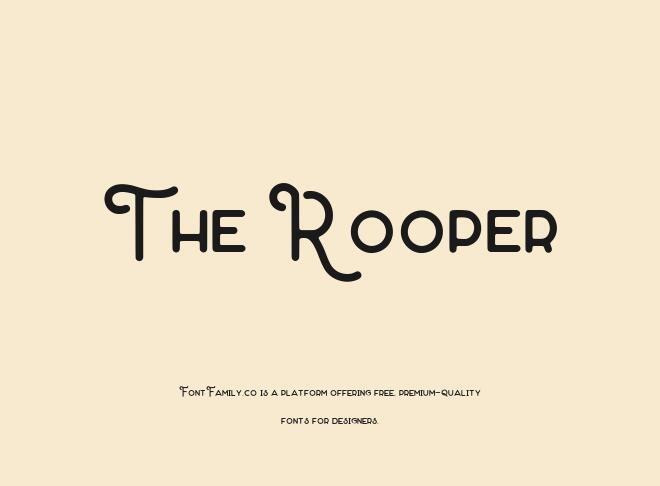
The Rooper Font
The Rooper Font, designed by Independent Type Foundry, is a charming blend of rustic, playful, retro, and vintage elements. Its unique character strokes and high legibility make it a standout choice for a variety of design projects. The Rooper Font is akin to the nostalgia of the 60s while incorporating a modern twist, making it perfect for logos, posters, branding, and packaging design. Its versatility also extends to digital platforms, enhancing web and app designs with its distinct personality. Compared to other fonts, The Rooper Font offers an inviting and engaging visual appeal that can make any design pop. Embrace the charm of The Rooper Font and elevate your designs to new creative heights.
Author | Independent Type Foundry |